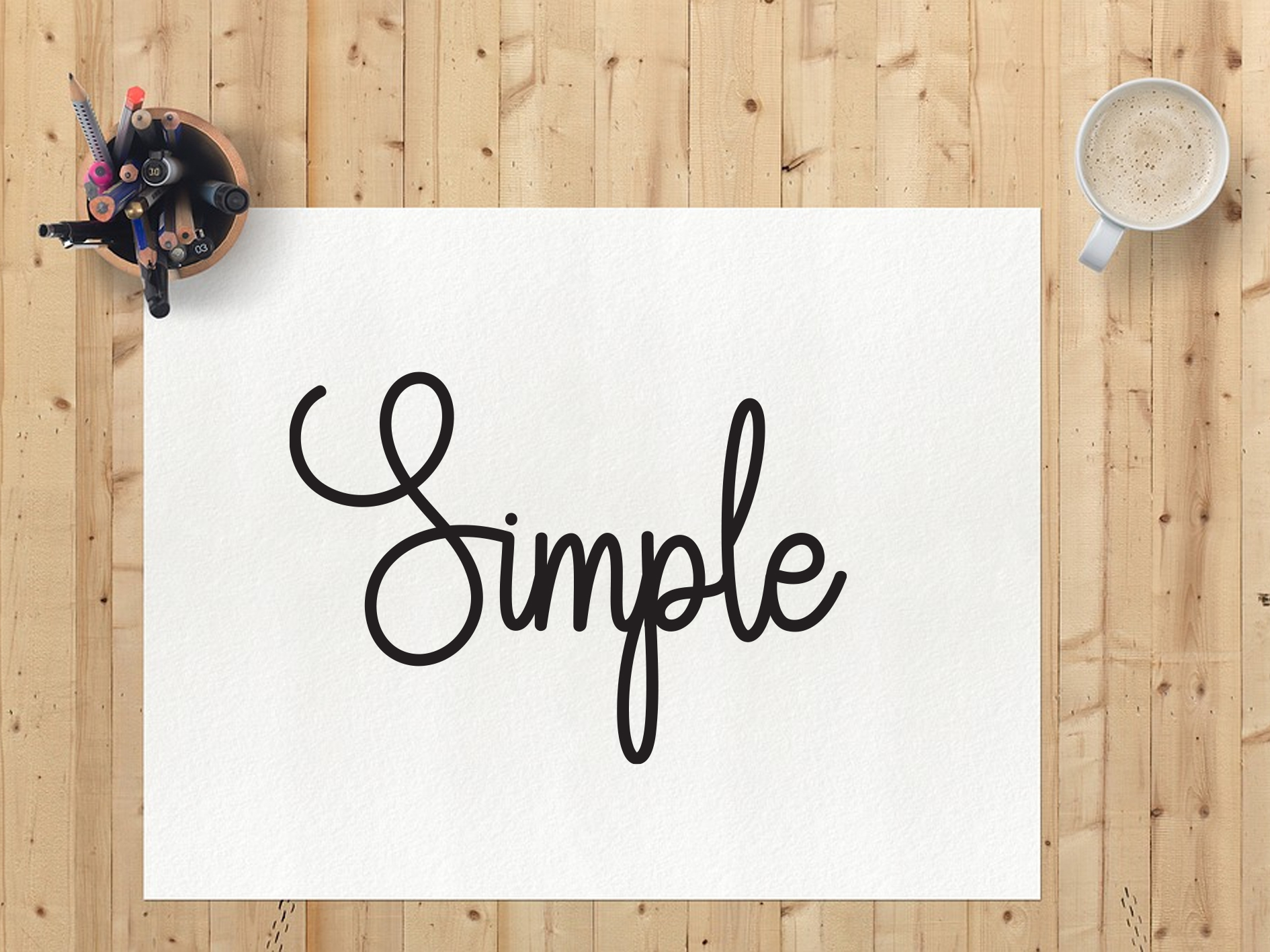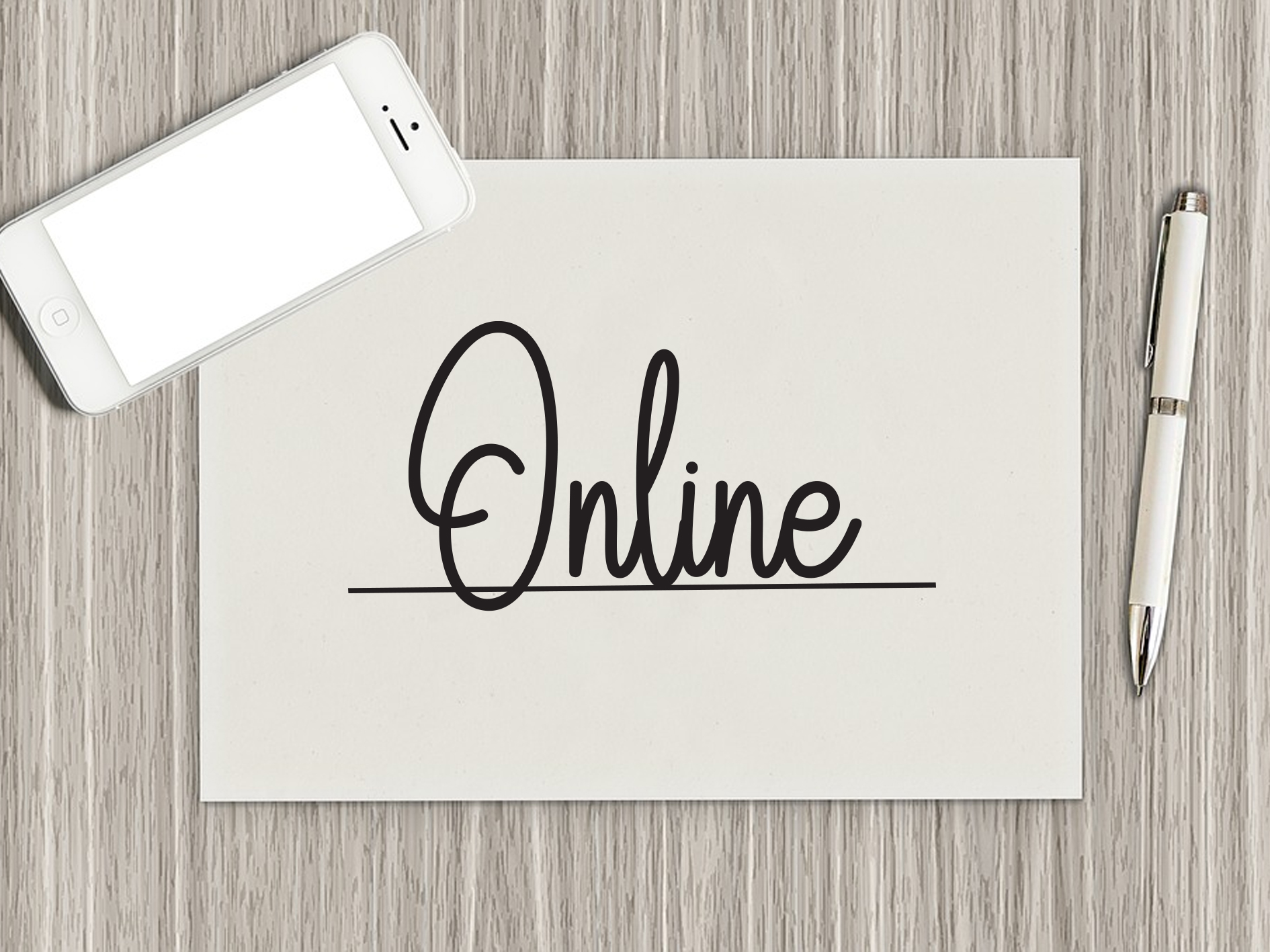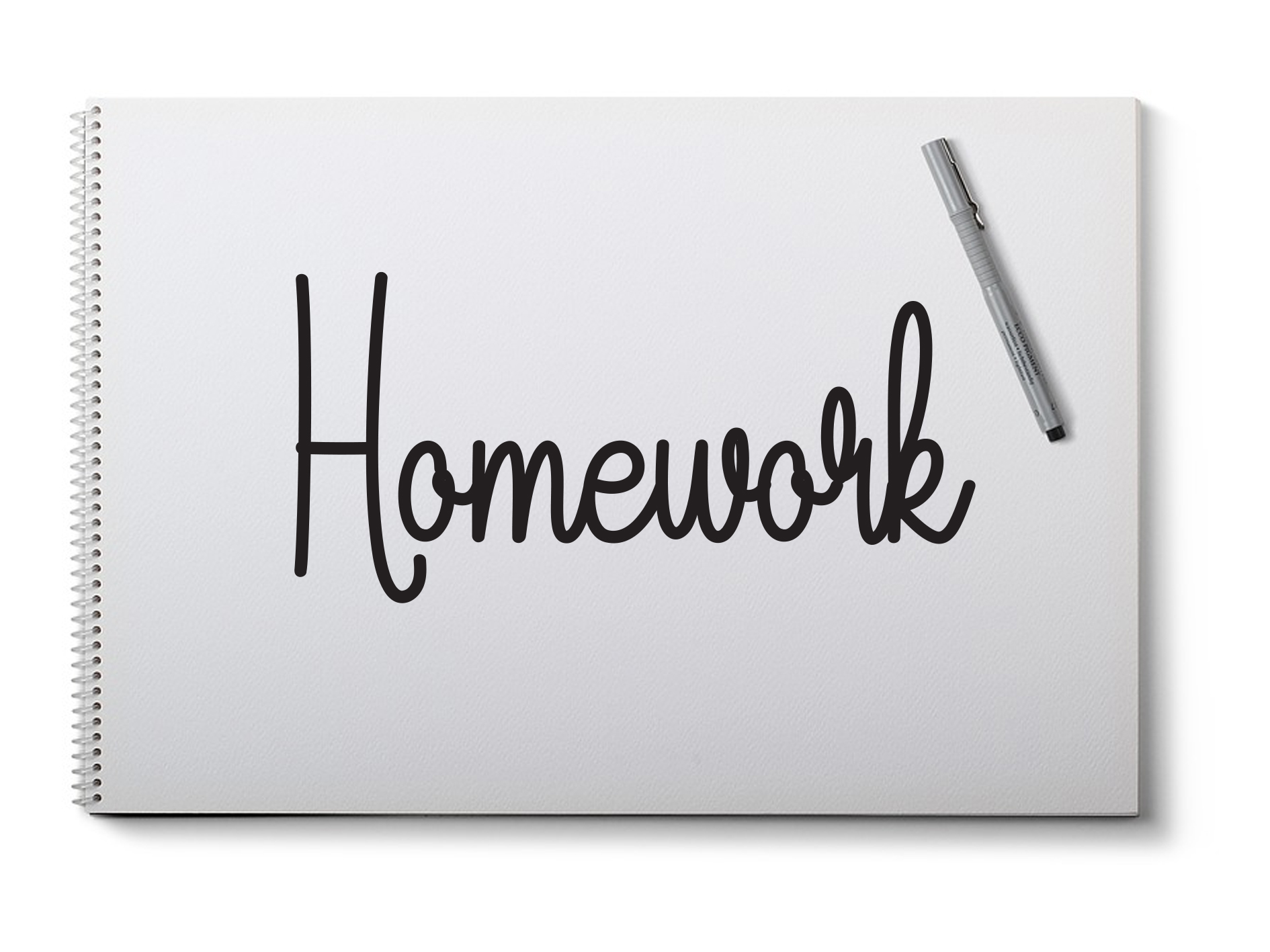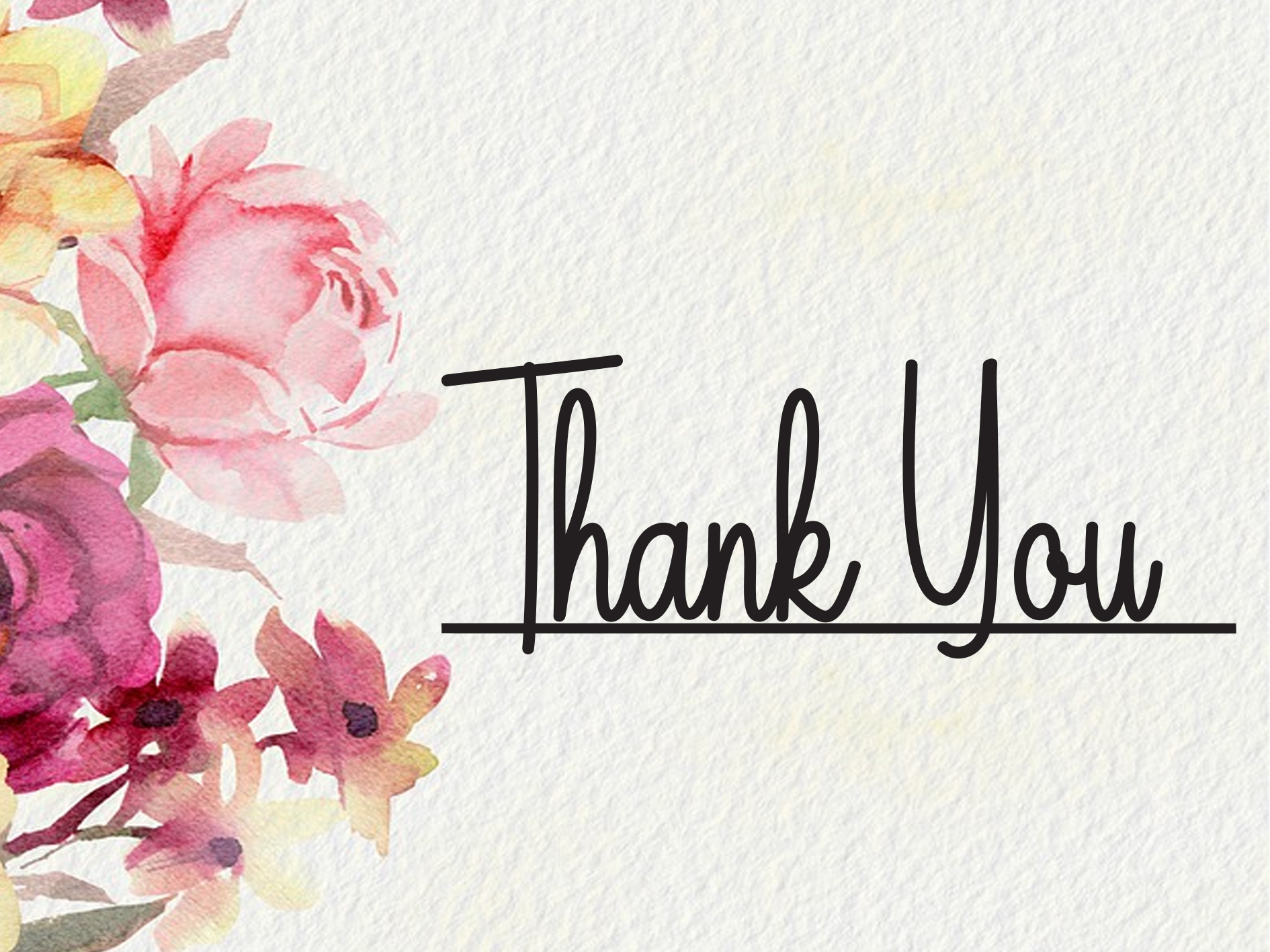
Signature Script Font
It’s a beautiful handwritten font that is made with great care in order to produce the expected outcomes. This font can be used for writing quotes, titles, brand names, book covers, posters, or just any creation that requires a touch of elegance.
This is a beautiful and unique handwritten font, with grooves crafted to produce beautiful lettering for use in a wide variety of products as desired. This product link; https://www.creativefabrica.com/product/signature-64/ref/1679118/